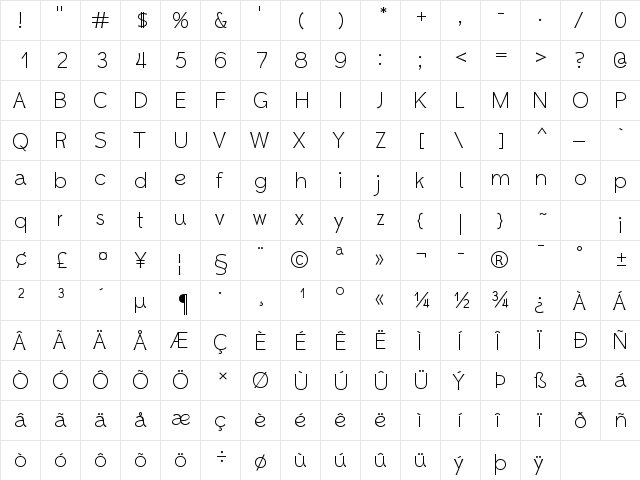
Whipsmart Regular
| Designer | Lauren Thompson (Nymphont/NymFont) |
Design Context for Whipsmart Typeface
Whipsmart takes a measured approach to typography — its balanced proportions and neutral character make it a reliable workhorse for both digital and print work.